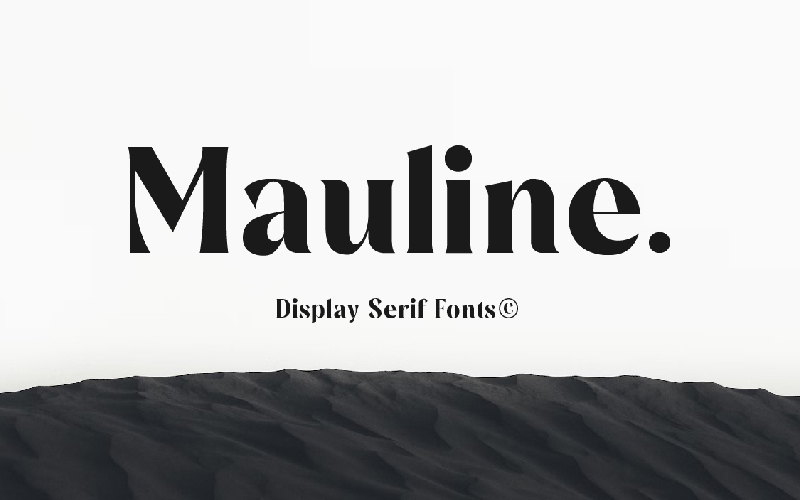
Mauline Display Serif Font
Designed by Abdul Artega
About Mauline Display Serif
a modern, stylish serif font that offers excellent legibility for a variety of applications. This font is ideal for use in any kind of graphic design or advertising work, from logo designs to web design and print projects. Its easy-to-read character shapes, distinct letterforms, and beautiful typographic details make this typeface perfect for creating impactful and captivating visual designs.